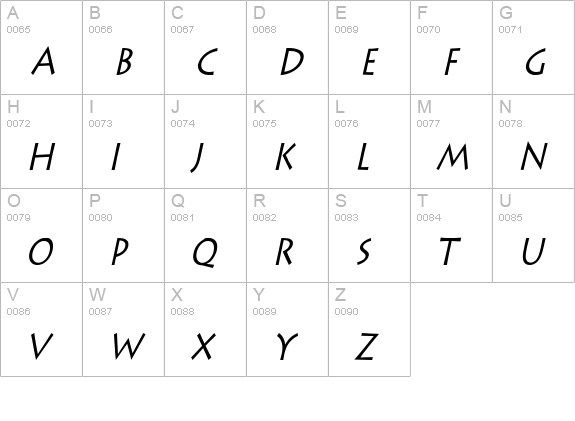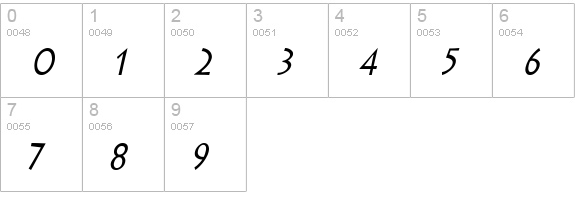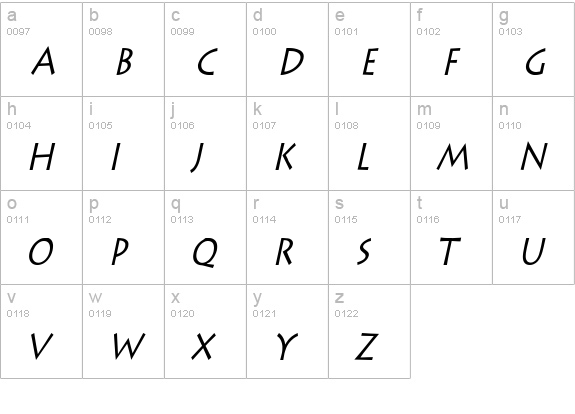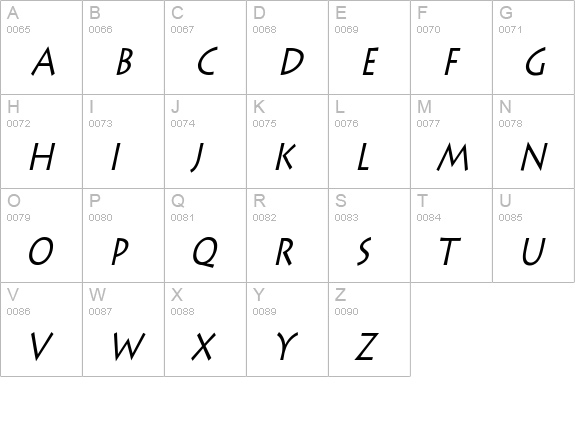
Liste Condensed Italic Font Details
Liste Condensed Italic is a distinctive, condensed-width, italic variant in the Liste typeface family \xE2\x80\x94 well suited to design and typography projects.
Liste Condensed Italic font is a sleek and modern typeface that exudes sophistication and style. With its elegant slanted design, this font is perfect for adding a touch of flair to any project. The condensed nature of the font allows for more text to be displayed in a limited space, making it ideal for headlines, titles, and branding materials. What sets Liste Condensed Italic font apart is that it is not only visually appealing but also free to download. You can easily access this versatile font at FontsMarket.com, where you can enhance your design projects without any cost. Whether you're working on a website, poster, flyer, or any other creative endeavor, Liste Condensed Italic font is a fantastic choice to elevate your typography game.